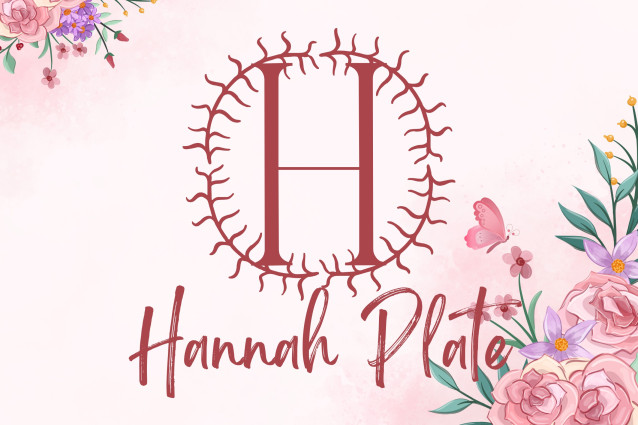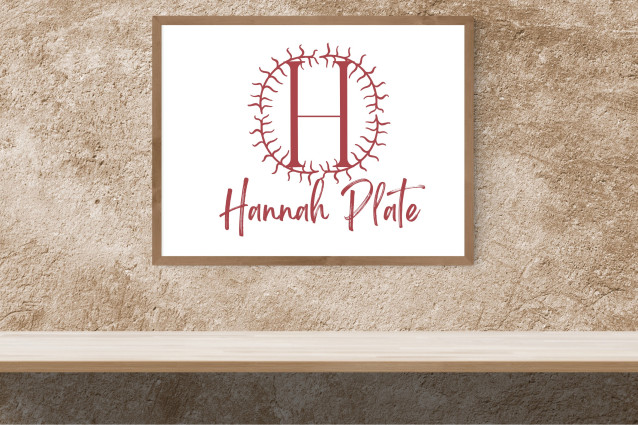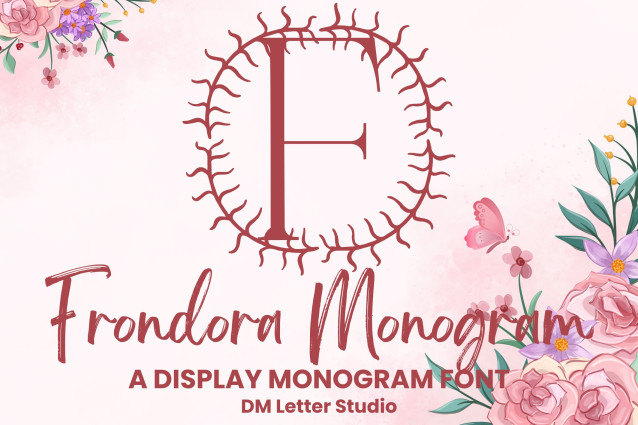
Frondora Monogram Font
Frondora Monogram Font is a sophisticated botanical monogram font featuring uppercase initials entwined with fine leafy elements. Designed to bring nature’s elegance into modern monogram design, each letter is adorned with hand-drawn foliage for a fresh, graceful feel. Perfect for wedding branding, boutique logos, stationery, and personalized gifts, Frondora adds a refined, natural touch to any creative project.